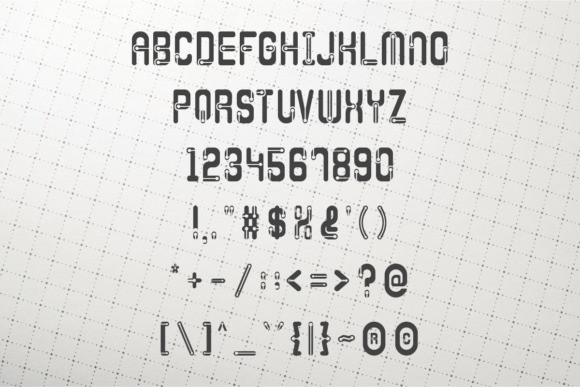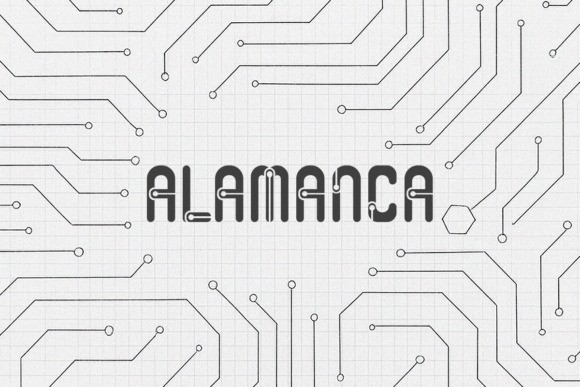
Alamanca Font
Alamanca Font is a modern display font with a futuristic style inspired by electronic circuit paths and mechanical design. Each letter is crafted with bold, pipe-like forms connected by rounded joint elements, creating a strong tech feel while maintaining a clean and minimal look. The high-contrast black-and-white design emphasizes its geometric shapes, giving it a sharp and elegant appearance.
Perfect for tech-themed projects, cyberpunk designs, digital startups, electronic music posters, futuristic games, or branding that seeks a modern and innovative edge. Alamanca blends industrial aesthetics with contemporary clean lines, making it an ideal choice to capture the attention of today’s audience.